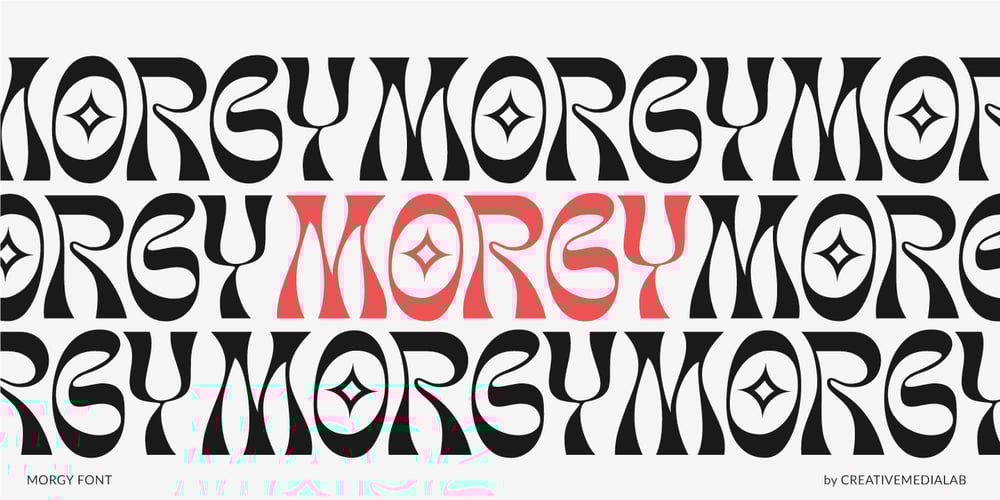
Morgy
Morgy font
Morgy Font Family was designed by Kadek Mahardika and published by Creativemedialab. Morgy contains 1 styles and family package options. Morgy is a unique font that displays a cheerful and dynamic impression, suitable for all modern design concepts from posters to branding